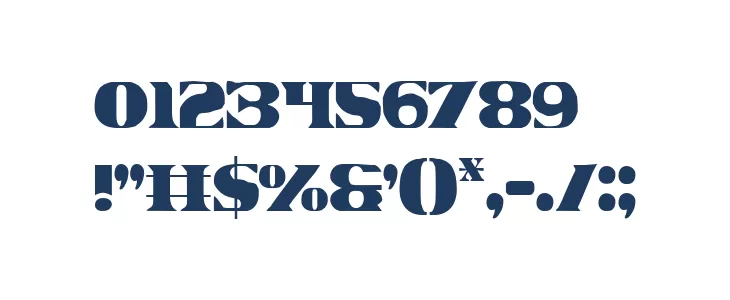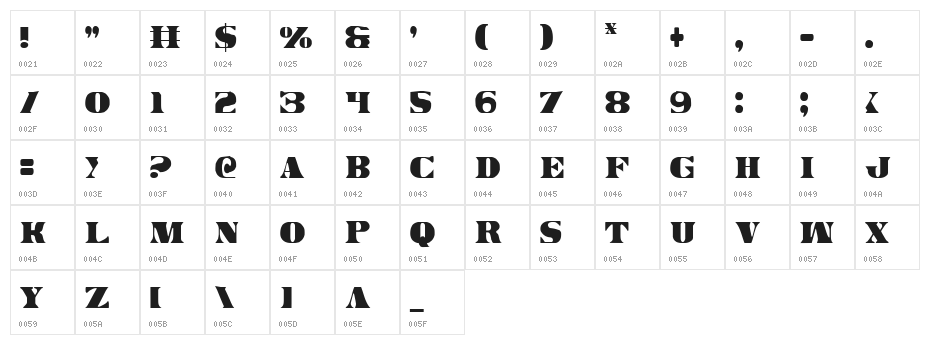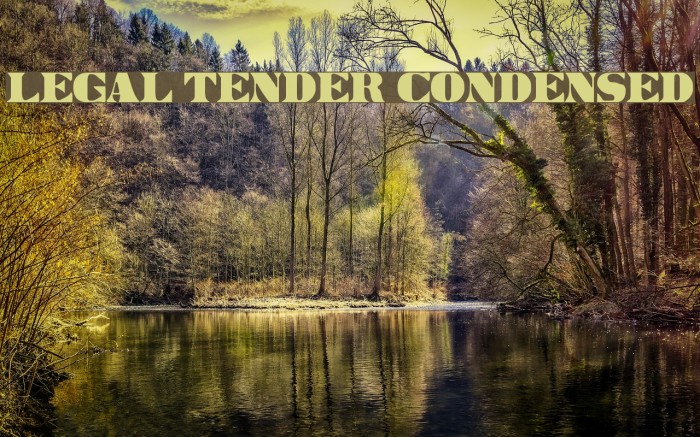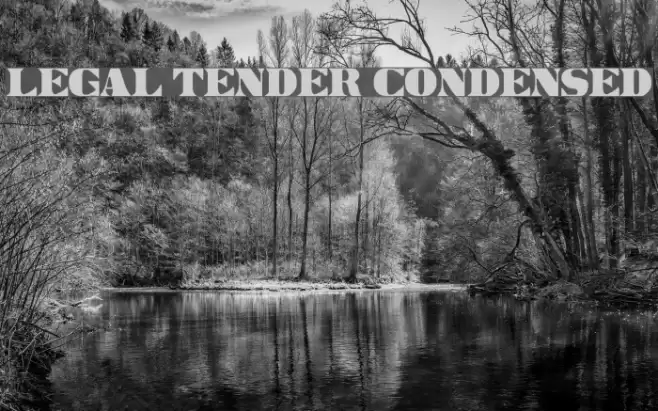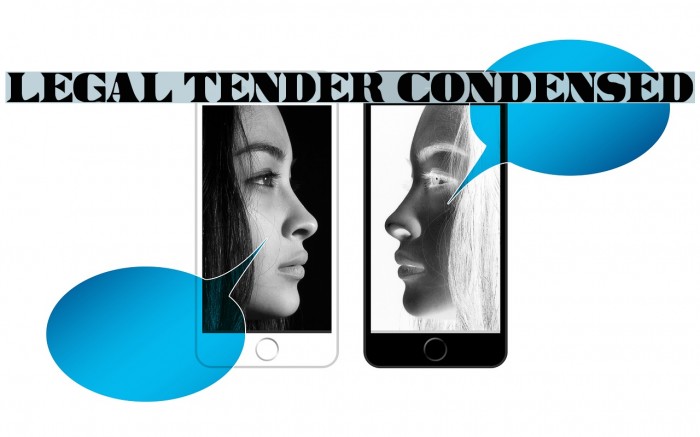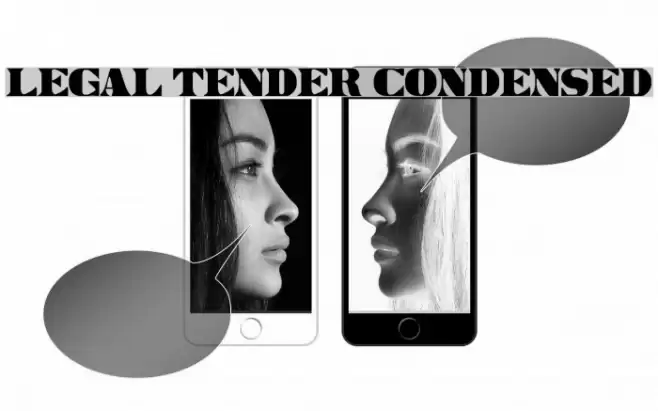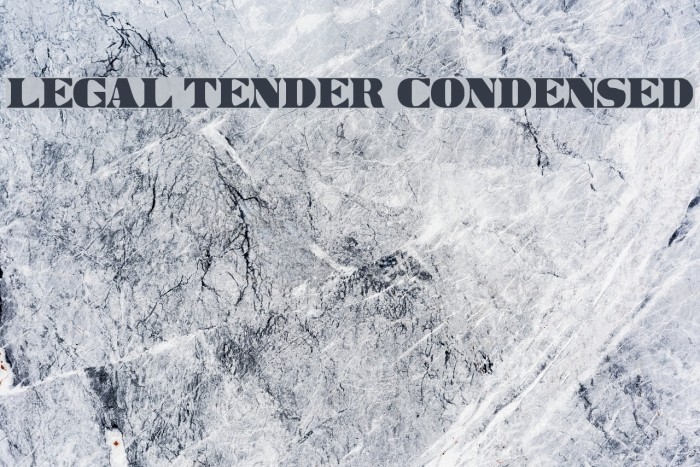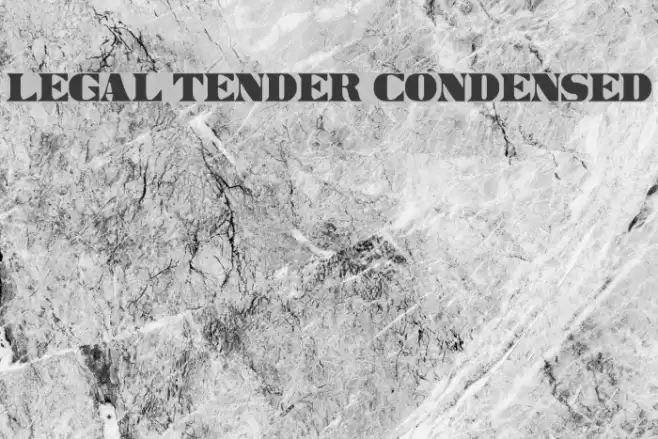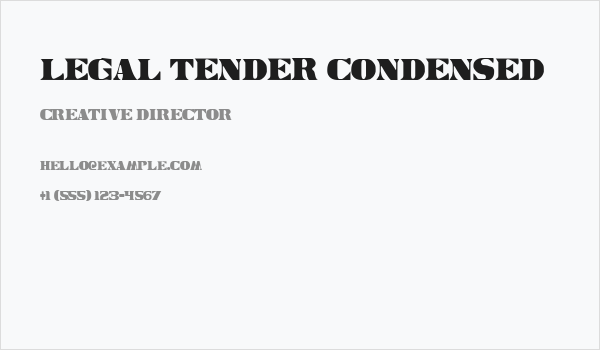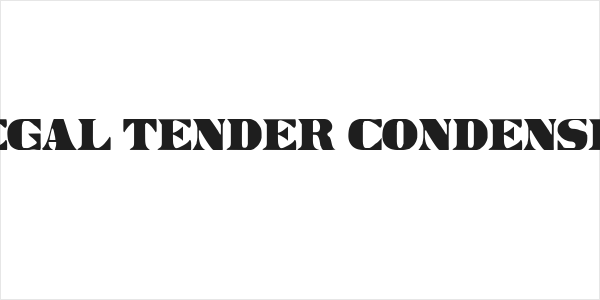
Legal Tender Condensed Font
Legal Tender Condensed Description
This font is a bold and striking typeface characterized by its condensed and blocky letterforms. The uppercase letters have a strong presence with thick strokes and sharp angles, giving it a powerful and authoritative look. The lowercase letters maintain the same boldness, ensuring consistency across the typeface. Numbers and special characters are equally robust, making them stand out prominently. The overall design is reminiscent of vintage or retro styles, often seen in old currency or signage, which adds a unique charm and character to the font.
| Proposed Projects | Ideal for projects requiring a strong visual impact, such as posters, headlines, branding, and signage. |